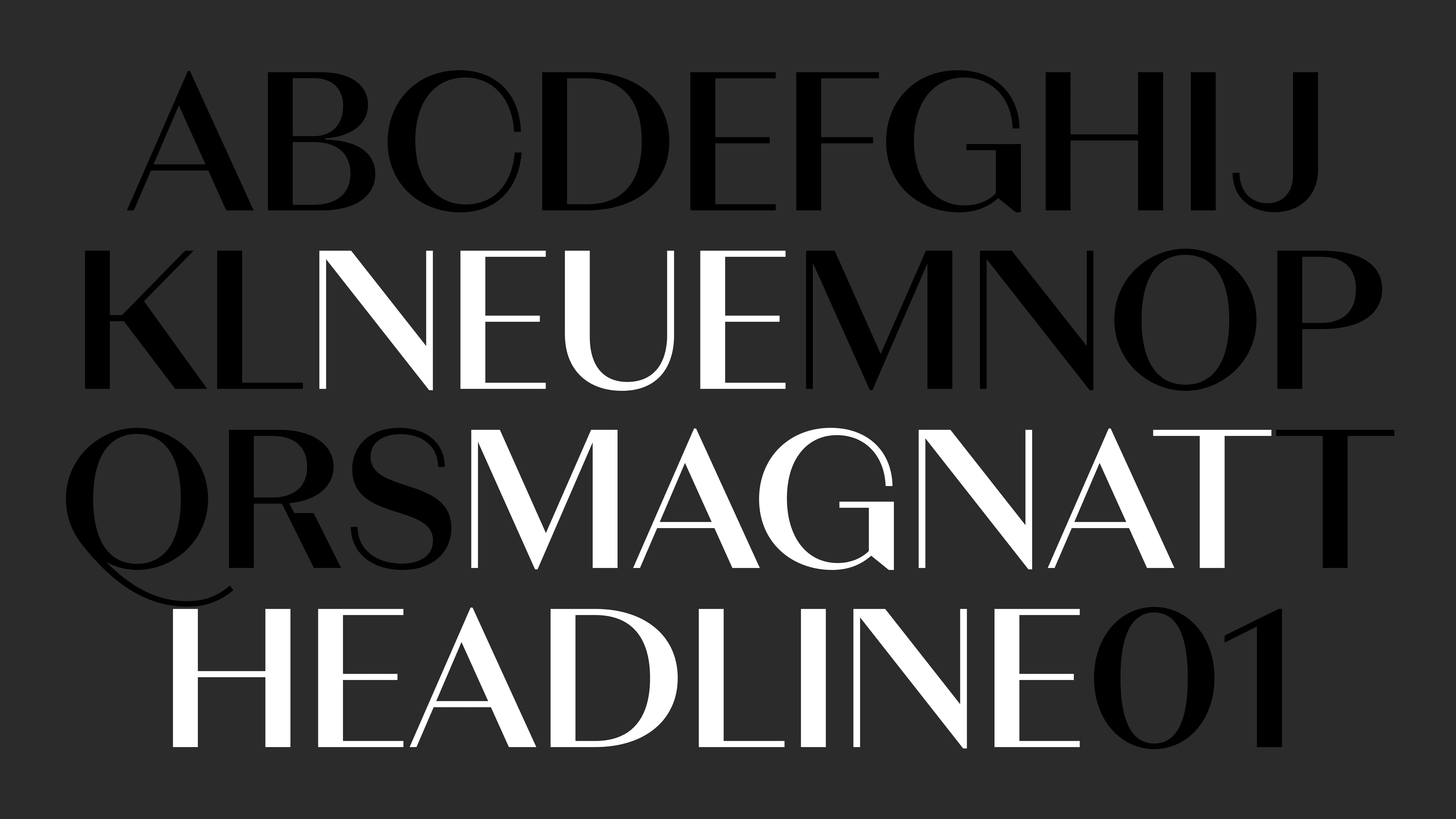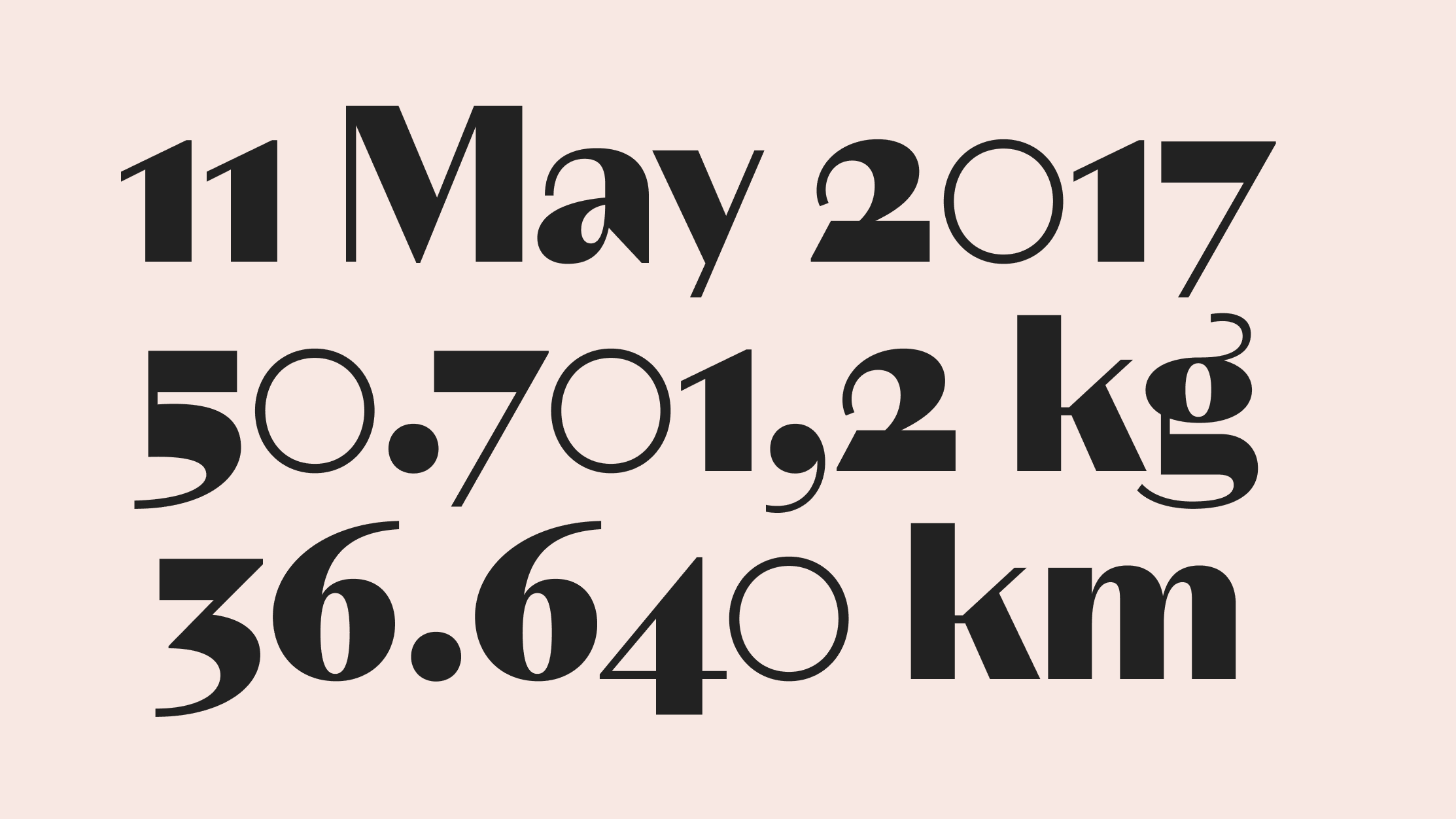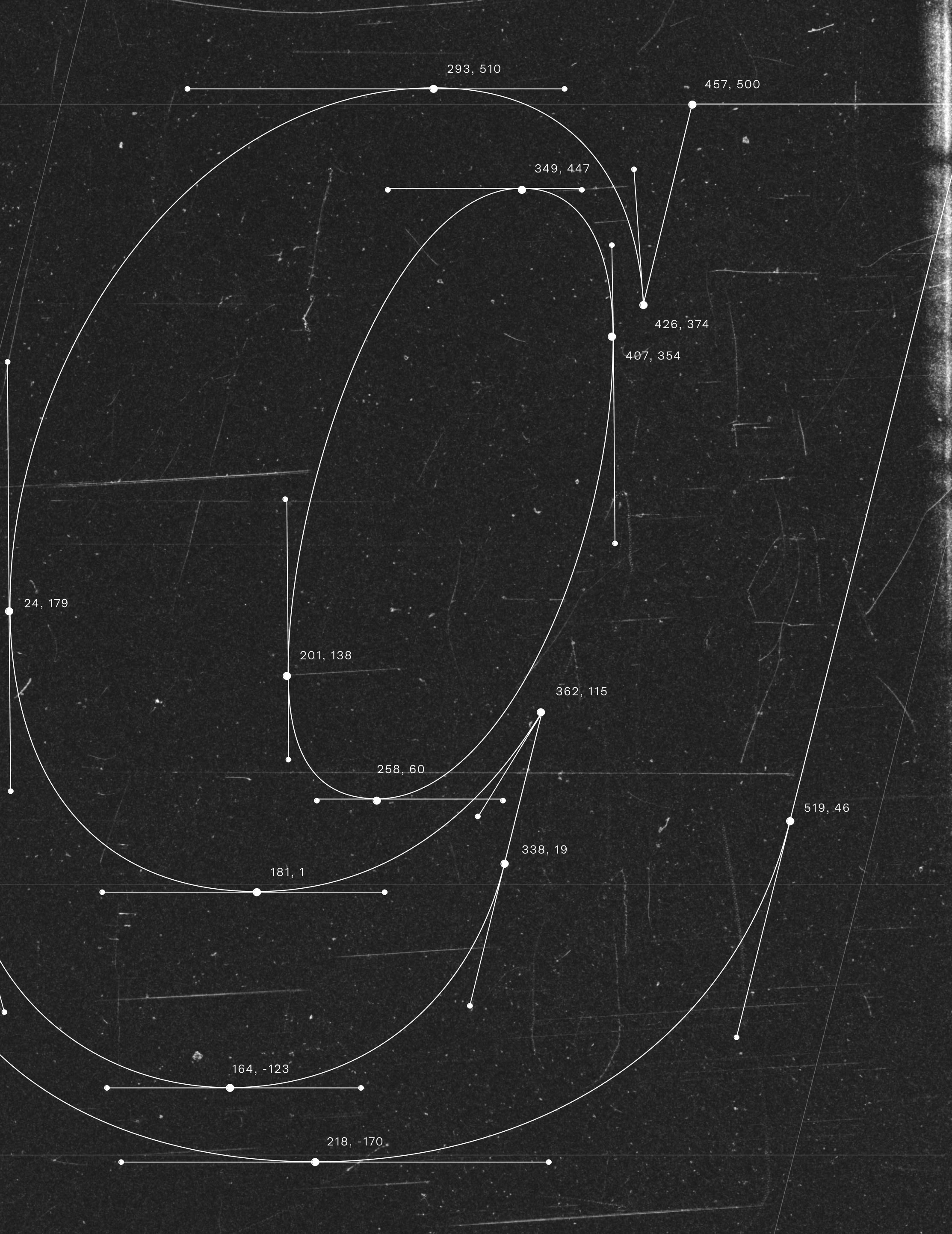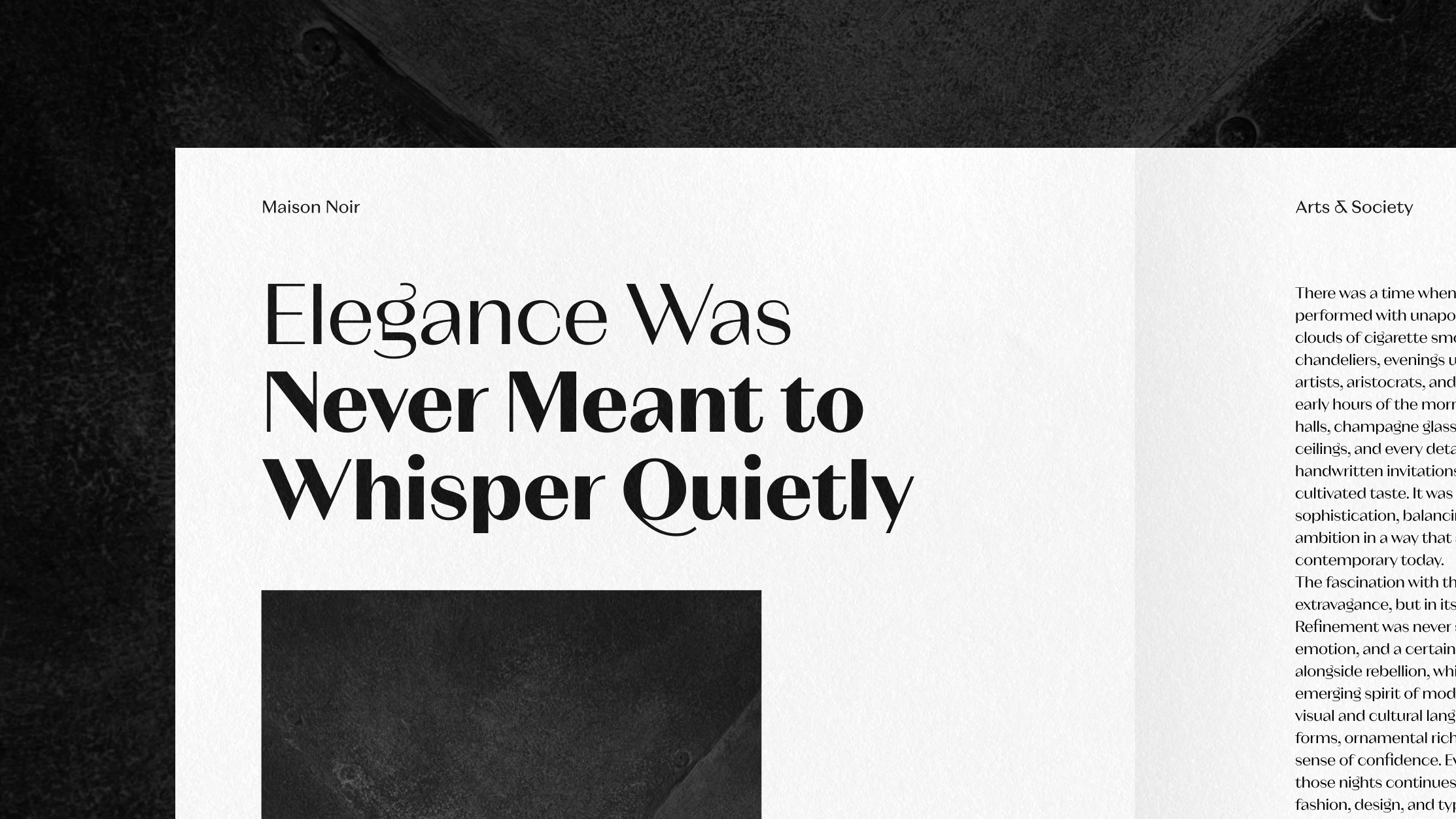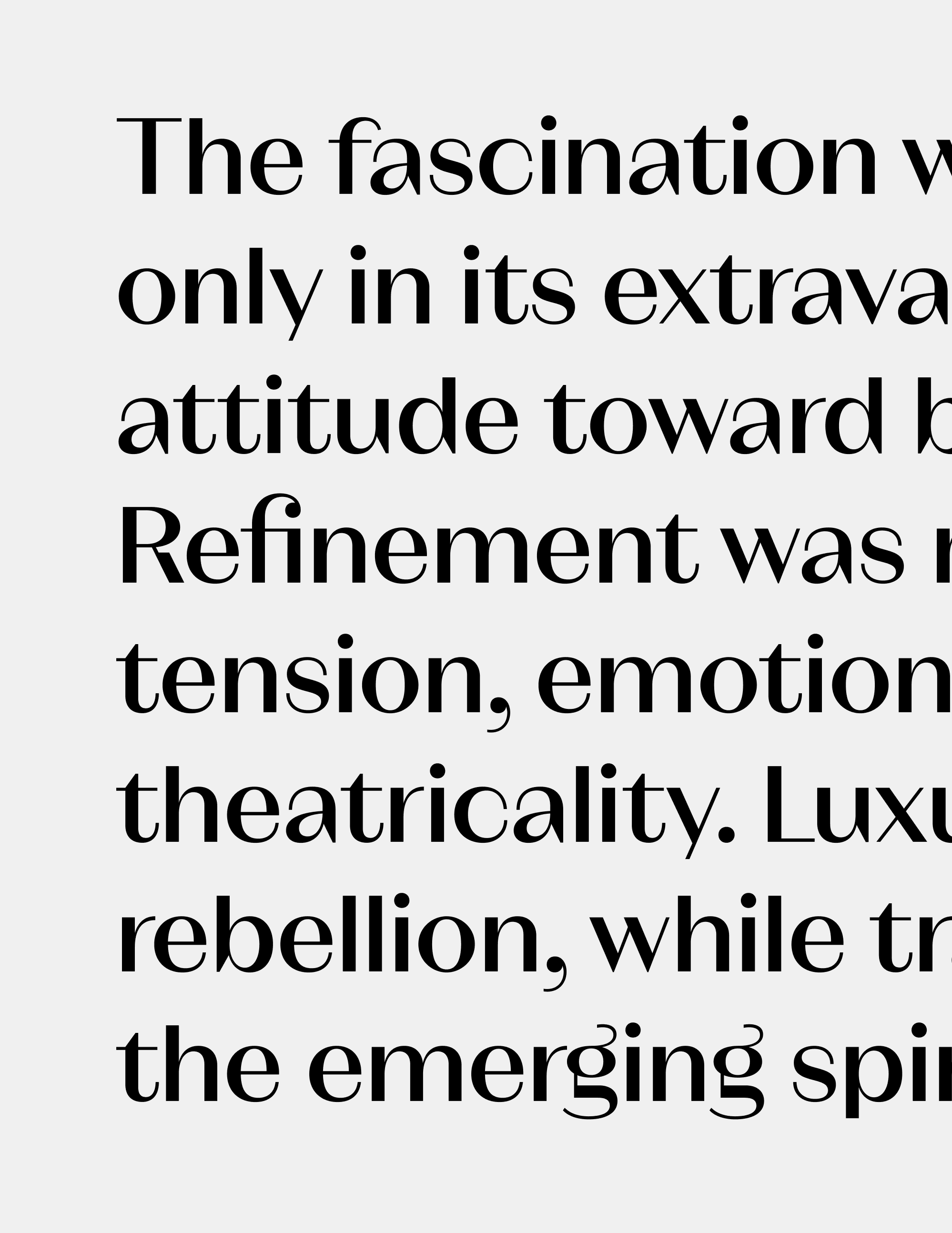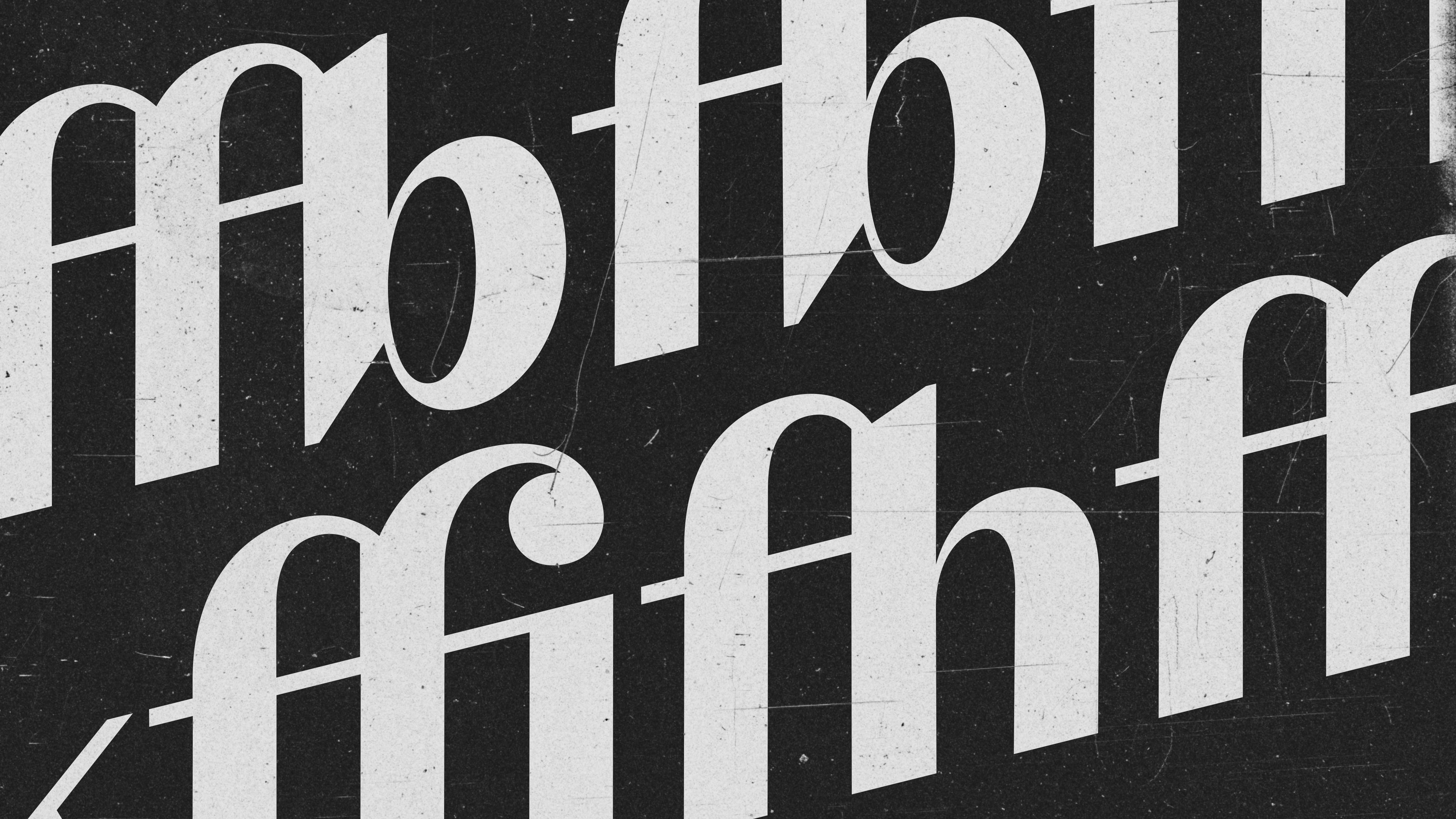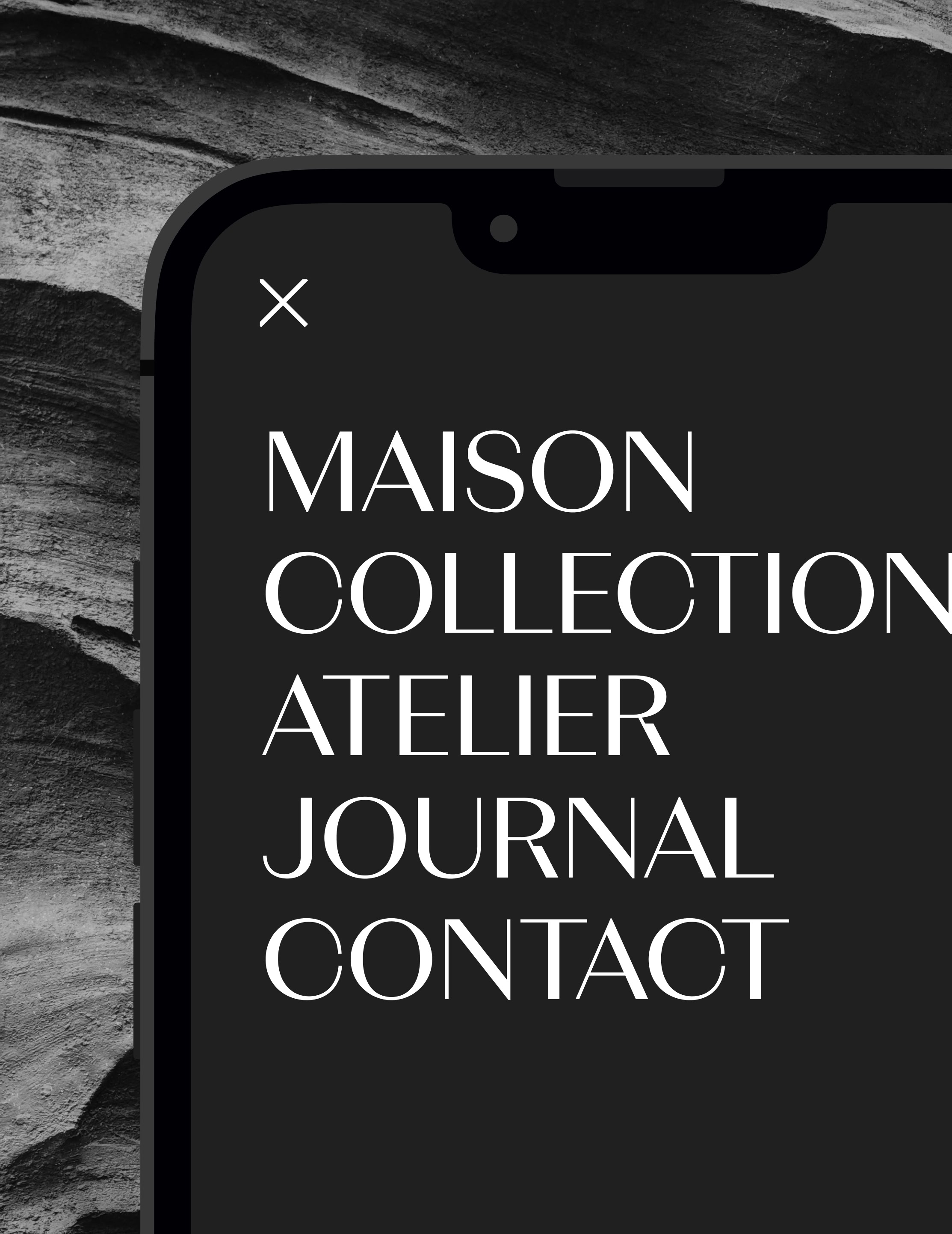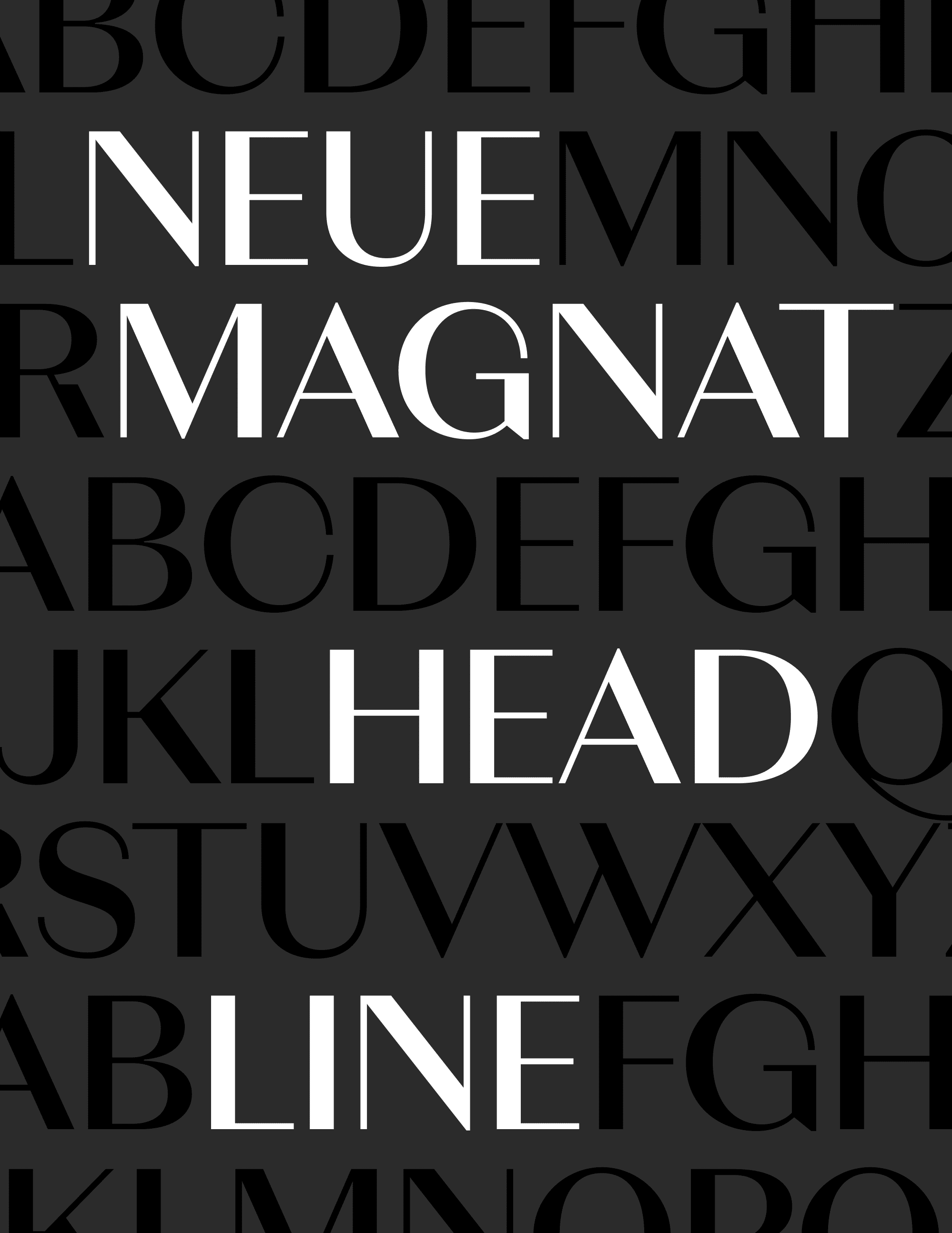
Neue Magnat Headline draws inspiration from the visual culture of 1920s Berlin. Intended for headlines and medium-sized typography, it balances expressive contrast with a calm, contemporary structure. Further subfamilies include Text and Display.